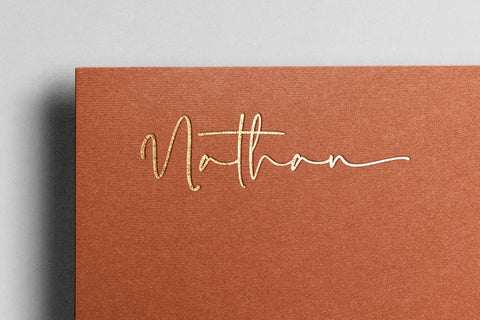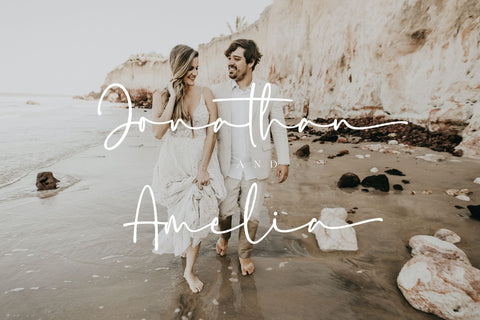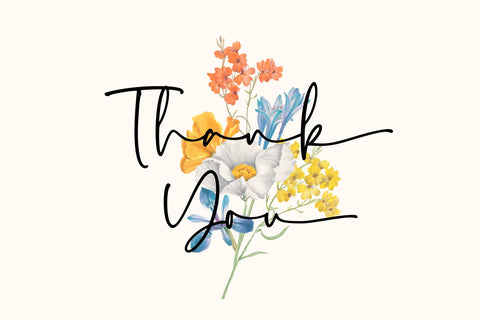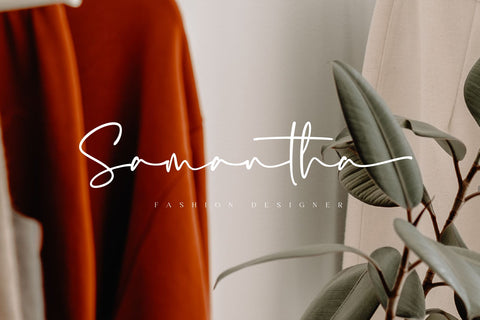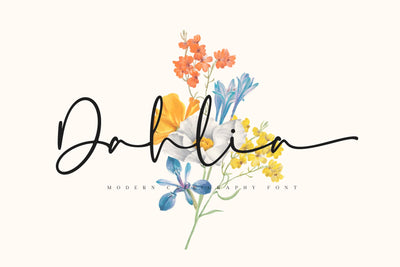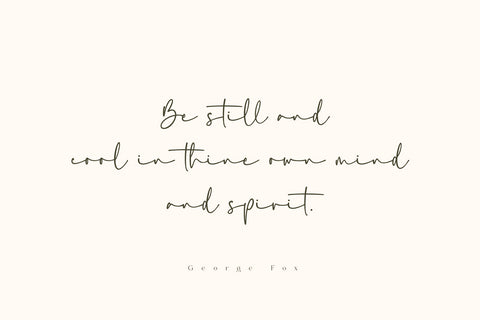
Dahlia - Modern Calligraphy Font
Proudly Present "Dahlia - Modern Calligraphy Font"
Dahlia is a modern calligraphy font with lovely chic style. This font come with ligature and beautiful alternate, so you can easy to use and easy to mix and match for any kind design project like branding, logo design and many more.